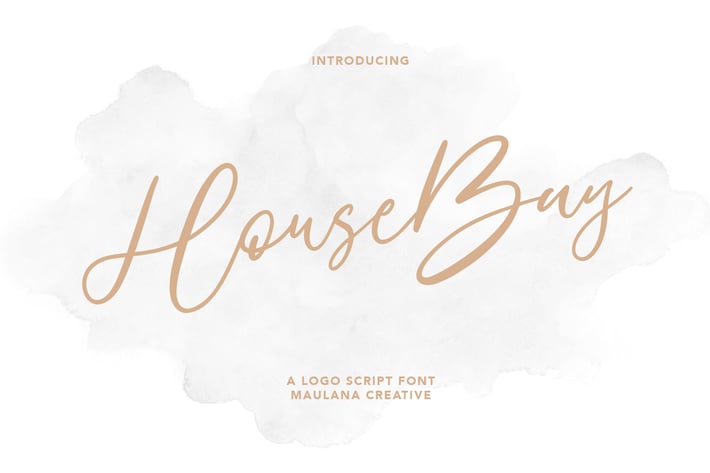
HouseBay Logo Script Font
Give your designs an authentic handcrafted feel. HouseBay Logo Script Font is perfectly suited to logo, stationery, branding, typography quotes, magazine or book cover, website header, clothing, branding, packaging design, restaurant and more.